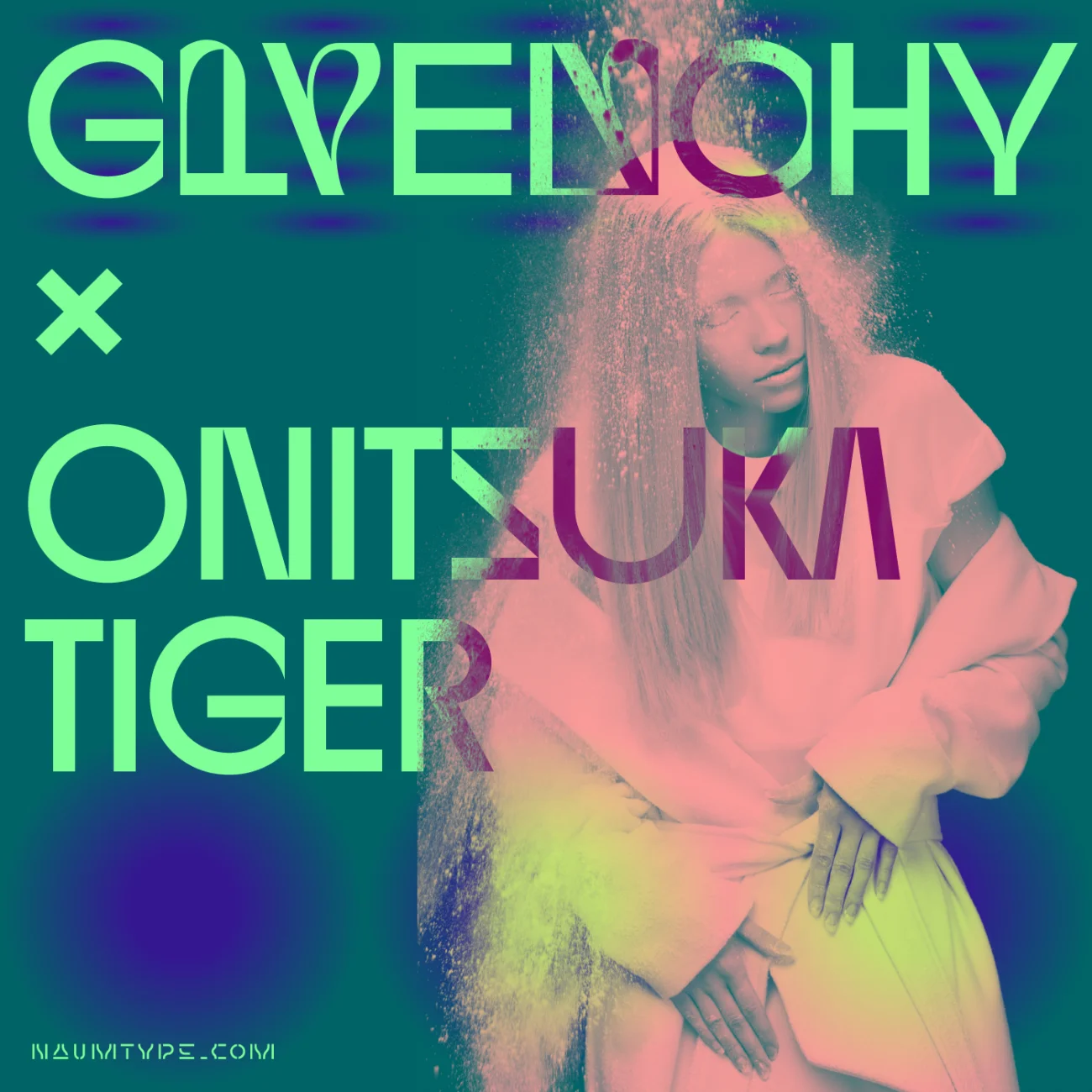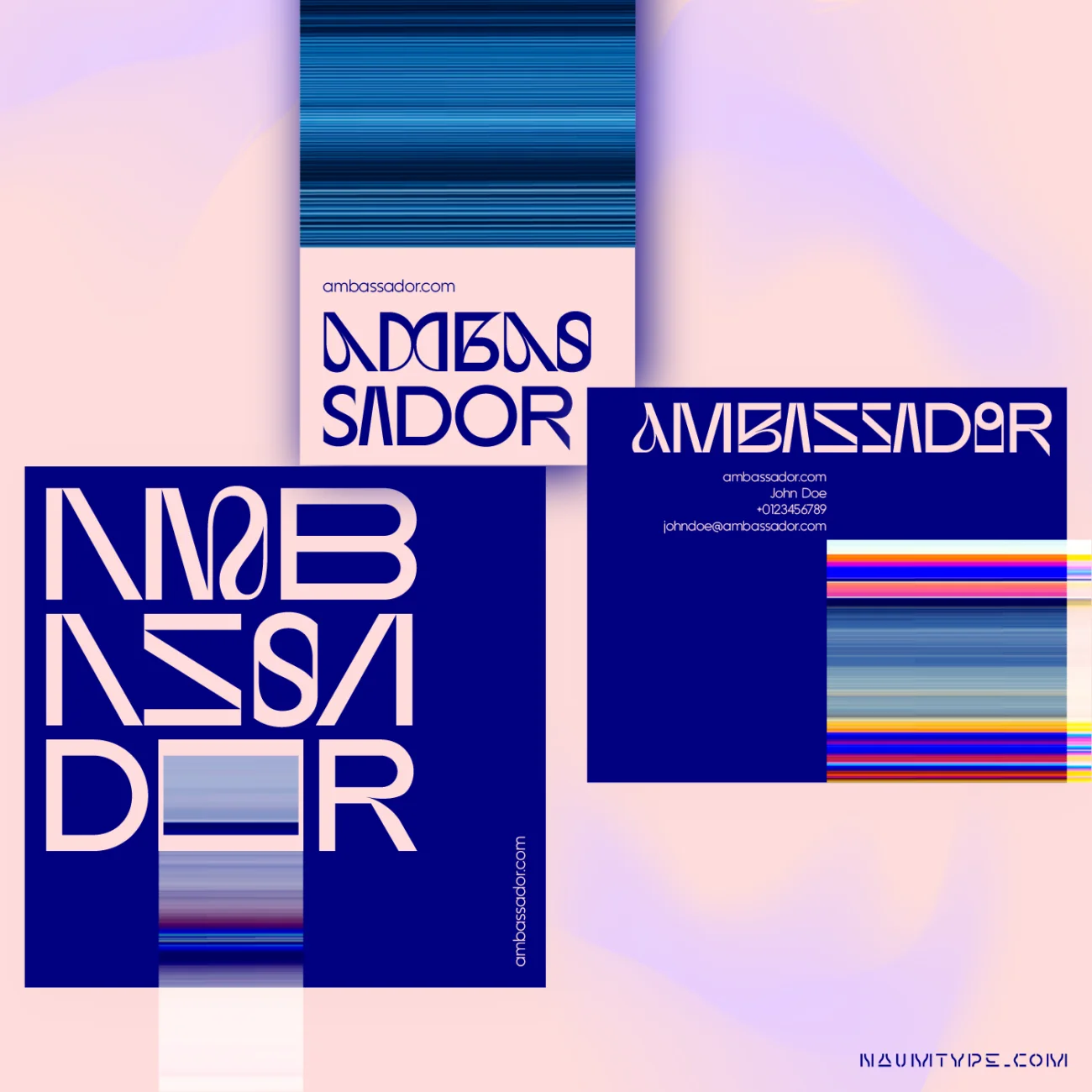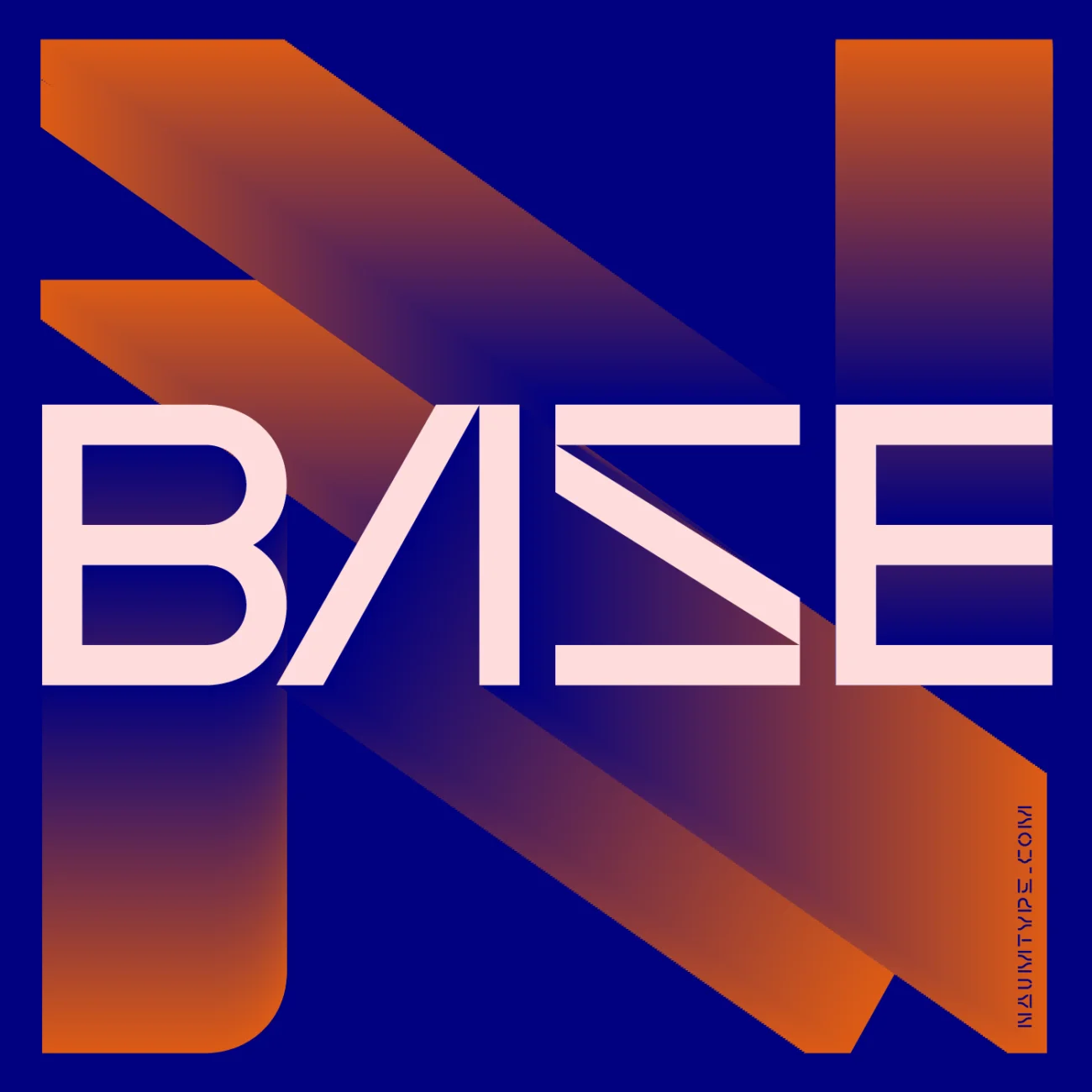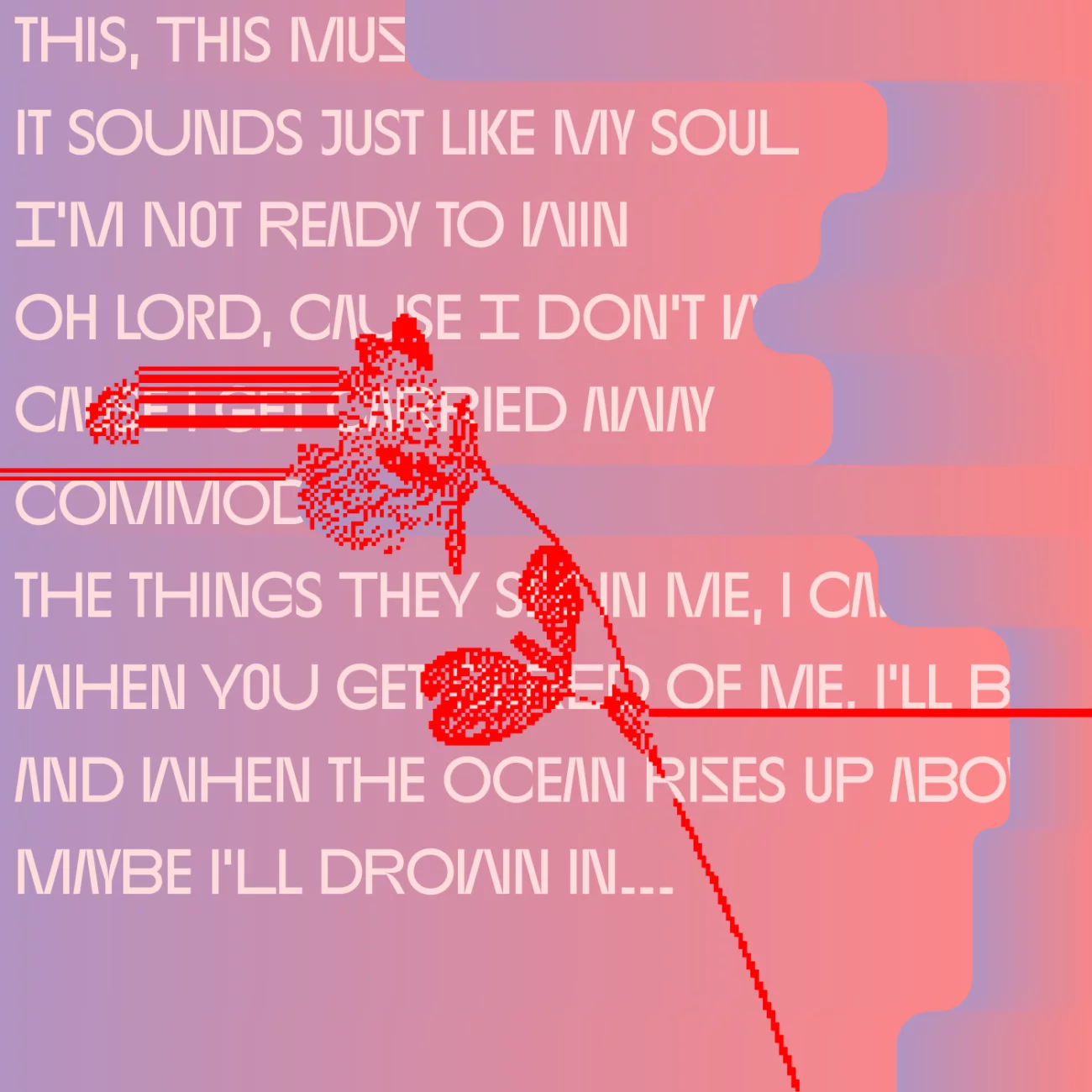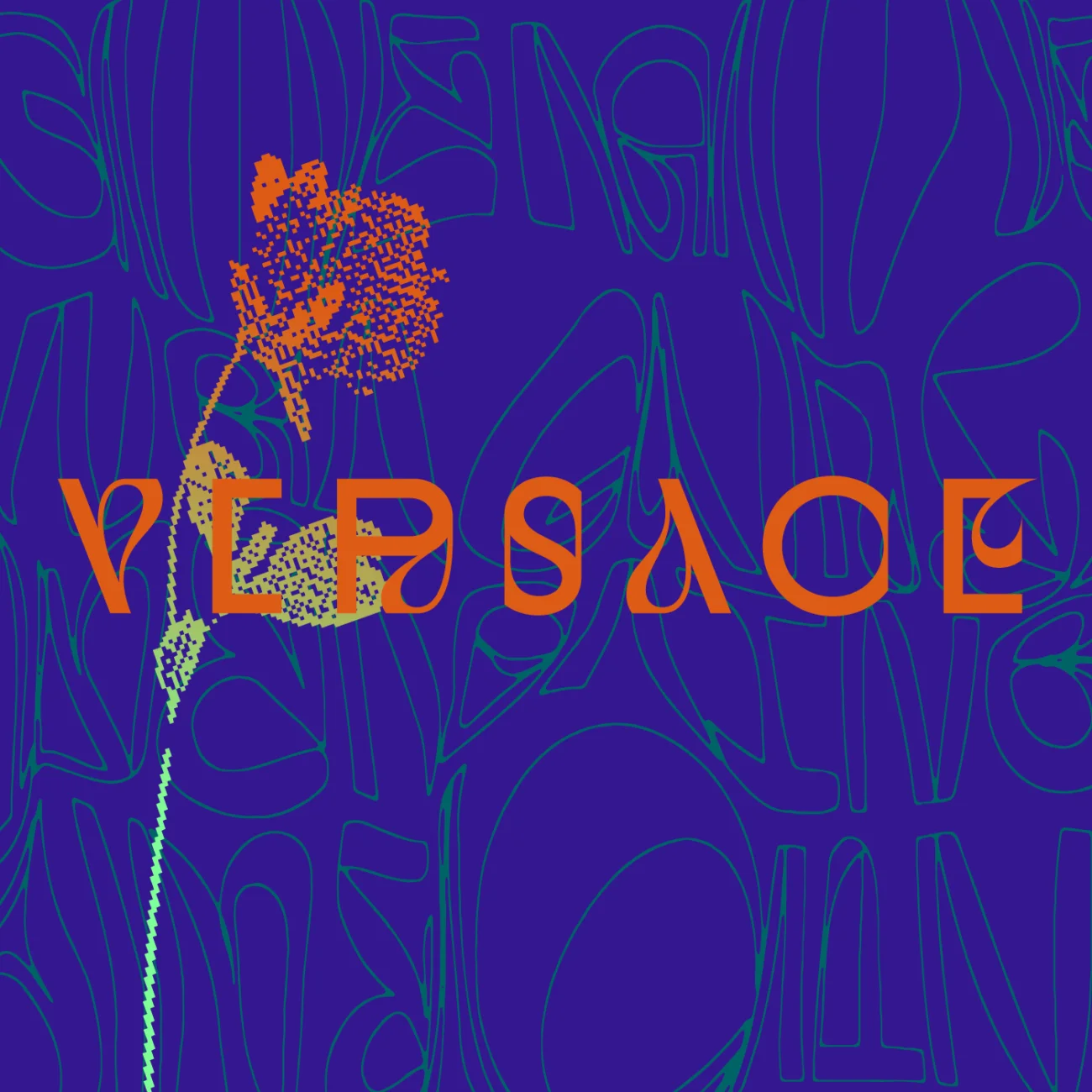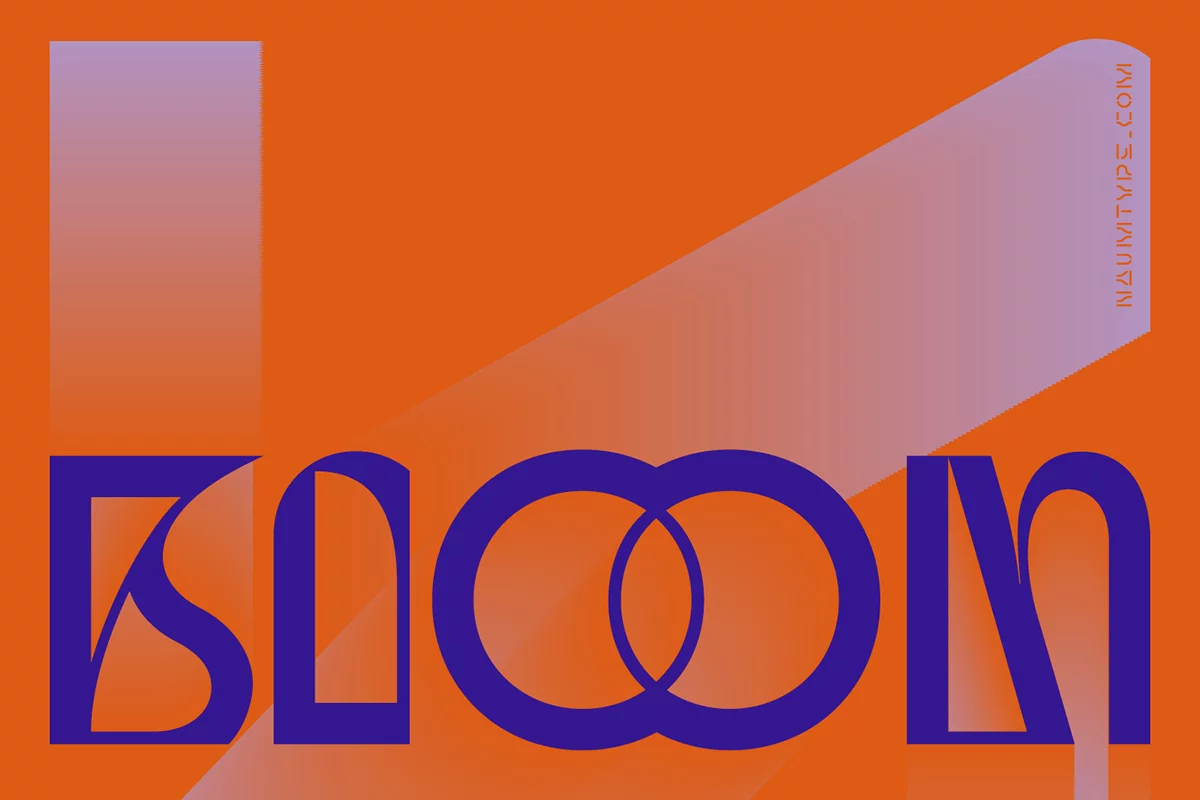
Conceptualised in response to the influx of experimental, contemporary serif typefaces, independent type foundry, Naum Type, present us with Base & Bloom. A compelling amalgamation of modern geometric sans serif and high-contrast flourish didone qualities, Base & Bloom is a starkly original take on the creative potential of the modern sans.
Integral to the structural functionality of the glyphs is fascinating detailing and ornamentation. Rather than merely decorating the typeface with add-ons, Naum have entirely integrated this decoratively into the structural integrity of the letters – meaning that the design is incredibly well-crafted, and each flourish is deeply purposeful.
In addition, the typeface is super-versatile, with up to 11 alternatives for each glyph, meaning its uses are malleable and inspiring – Base & Bloom is at once imbued with its own, distinctive character, whilst being adaptable to all kinds of visual narratives and possibilities.
This display typeface would be perfect for album covers, packaging, visual identity, oversize typography and editorial design; and its many alternatives mean it can be crafted in a multiplicity of exciting directions. Supporting multiple languages and offering infinite combinations, Base & Bloom is a truly exciting addition to the world of the modern sans.